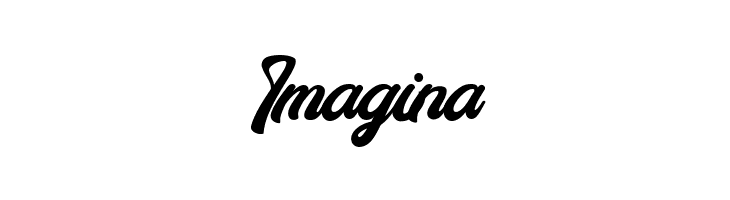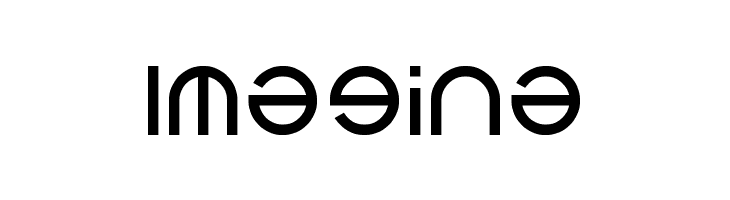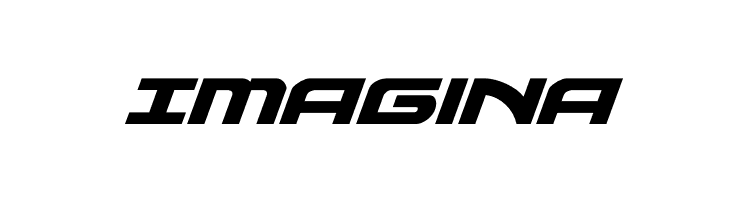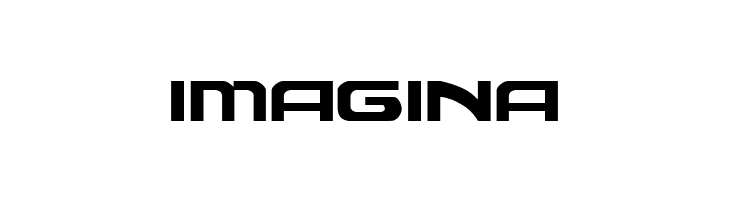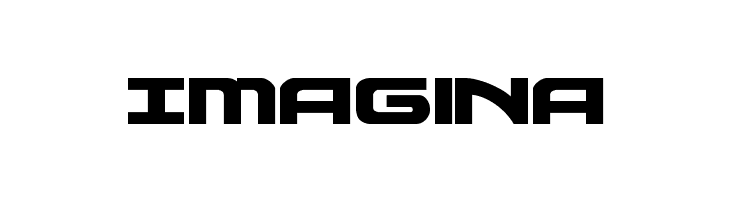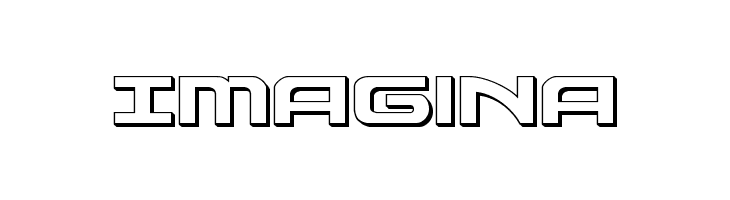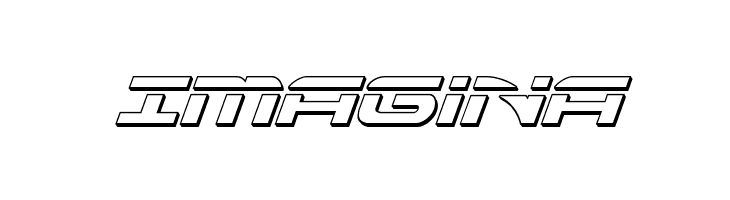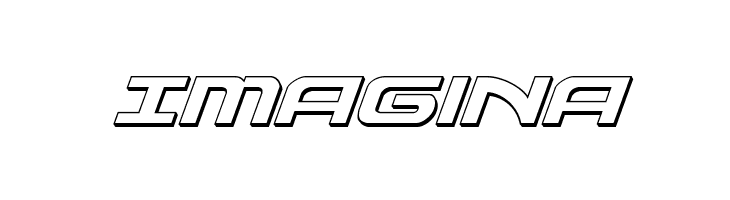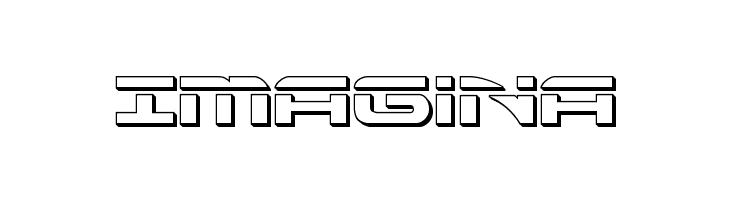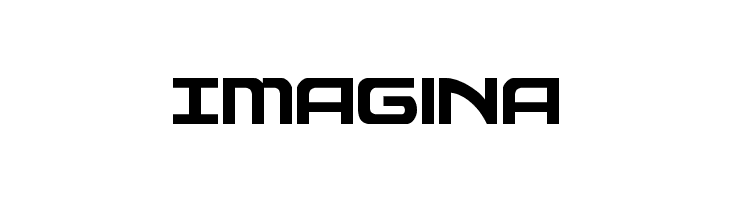
• AlexbyHarryTroeger
• AlexDirte Brush Font-Regular
A bold, expressive brush-style font with a rough, handcrafted appearance.
• alexey
A modern, geometric font with smooth lines and a futuristic style.
• alexey
A futuristic, geometric font with bold, angular letterforms.
• alexey Bold
A bold, futuristic font with geometric shapes and sharp angles.
• alexey Bold Italic
A bold, italicized font with a futuristic and geometric design.
• alexey Italic
A futuristic, geometric italic font with bold, angular lines and unique cutouts.
• alexey-Hollow
A futuristic, hollow, geometric font with a modern aesthetic.
• alexey-Hollow-Inverse
A modern, hollow, and geometric font with an inverse style.
• alexey-Inverse
A futuristic, geometric font with bold, angular lines and a dynamic style.
• alexey-Light
A futuristic, geometric font with bold, dynamic letterforms.
• Alexfont
• Alexi
A bold, cursive font with a dynamic, handwritten style.
• AlexInDR ExtremEdit
A modern, geometric font with a sleek, futuristic design.
• Alexis
A futuristic and geometric font with bold, angular characters.
• Alexis 3D
A bold, 3D futuristic font with geometric shapes and sharp angles.
• Alexis 3D Italic
A bold, 3D italic font with outlined characters and a futuristic style.
• Alexis Bold
A bold, futuristic font with angular, geometric elements and a strong presence.
• Alexis Bold Italic
A bold, italic font with a modern, futuristic design and sharp angles.
• Alexis Bullet